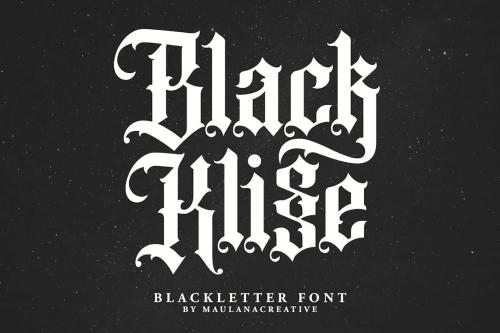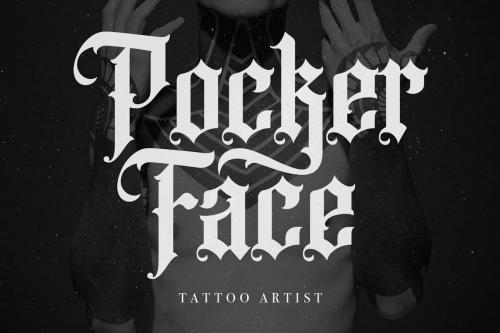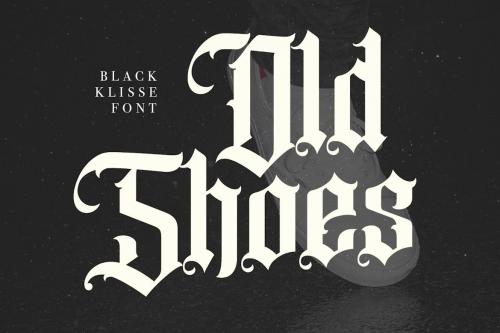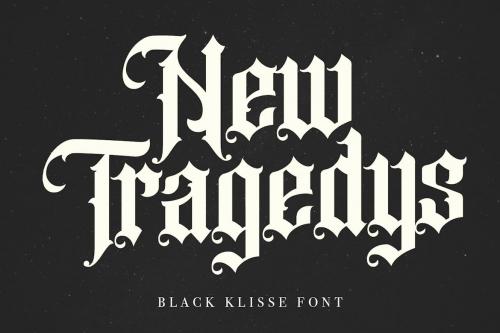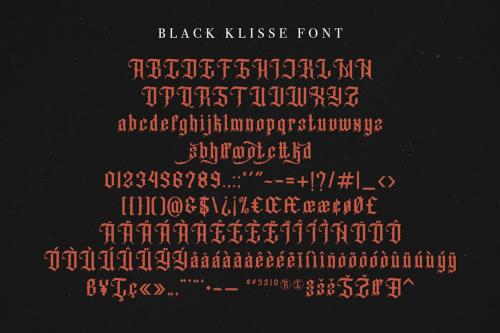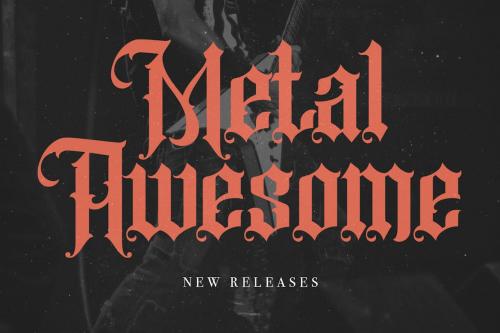
黑色克利塞黑体字体
Black Klisse Blackletter Font
ntroducing Black Klisse Blackletter Font is a handmade Modern Victorian handlettering, which is combining modern and classic typography with some awesome alternates. Yes we back to early 1800s, bring classic touch on this decade.
Introducing Black Klisse Blackletter Font
Black Klisse Blackletter Font is a handmade Modern Victorian handlettering, which is combining modern and classic typography with some awesome alternates. Yes we back to early 1800s, bring classic touch on this decade.
- Ligatures
- Alternate
- Fonts include multilingual support